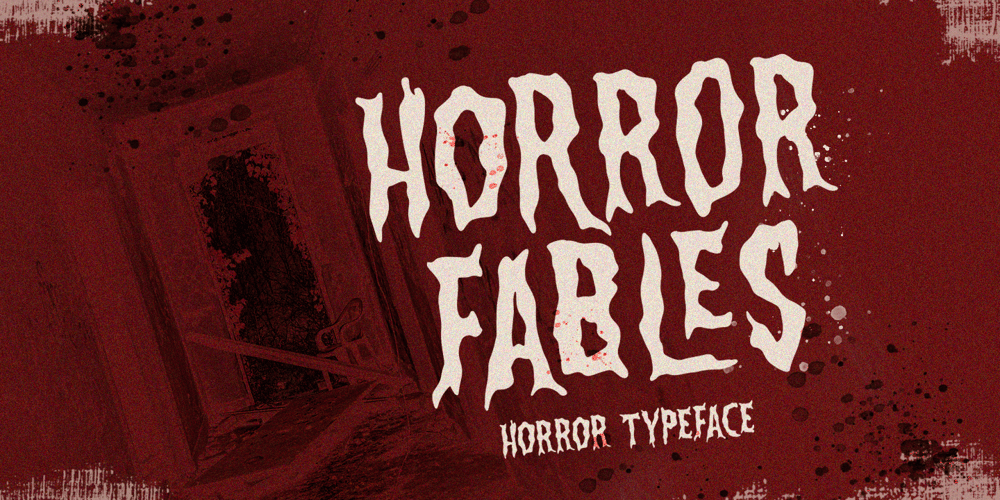
Horror Fables Font Family was designed by Hendry Juanda and published by Letterhend. Horror Fables contains 1 styles and family package options. Introducing Horror Fables Typeface – A display typeface that oozes dread and unease with every letterform. Designed to send shivers down your spine, it’s the ultimate choice for all things horror, creepy, and spine-tingling. Horror Fable” will infuse your work with an eerie aura that keeps your audience spellbound. Features : Uppercase & lowercase, Numbers and punctuation, Alternates & Ligatures,Multilingual, & PUA encoded